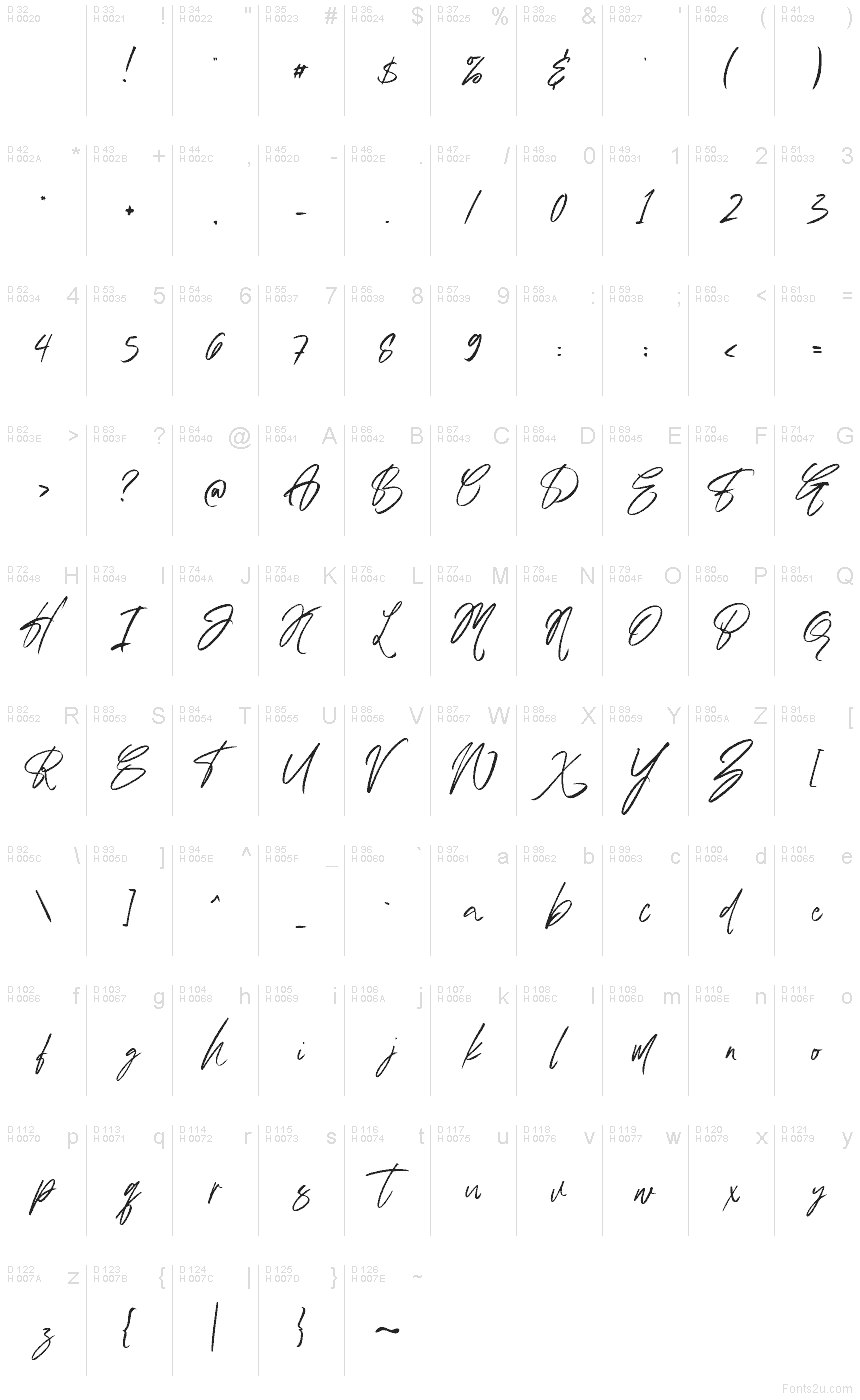
AustandSignature-Regular
Austand Signature font, designed by Tebaltipis Studio, is a handwritten font with light strokes and genuine artistic flair. It boasts casual elegance, modern appeal, and fluid motion; features that allow it to perfectly fulfill its purpose in classic signatuture design styles.
Use this sophisticated touch in designing messages for logos, stationery items (envelopes, letterheads), digital signatures, websites, book covers…